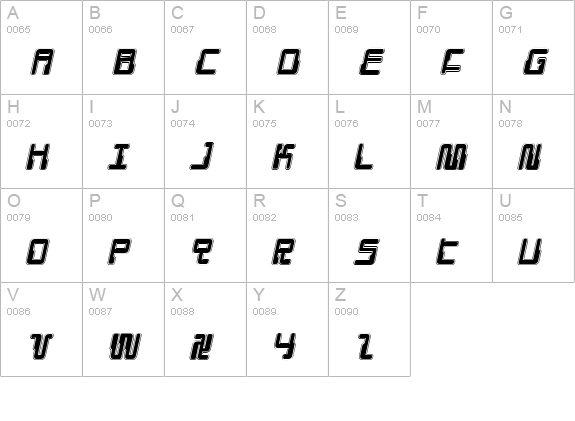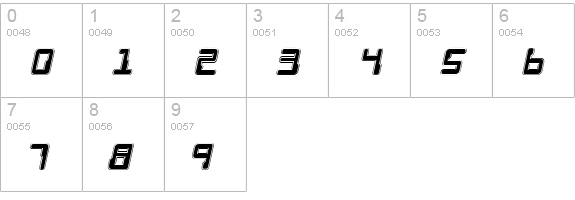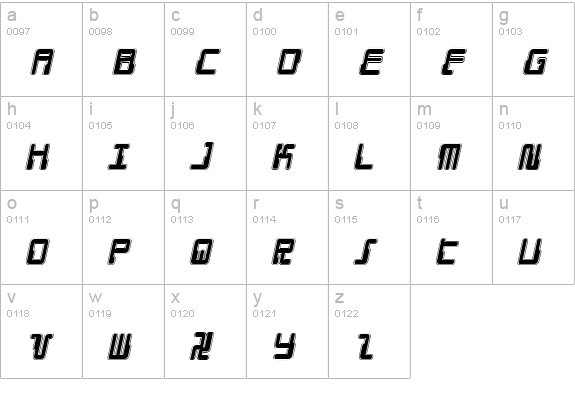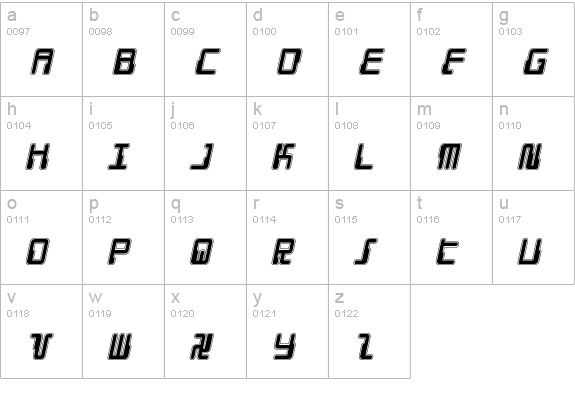
Droid Lover Pro Italic is a distinctive, italic variant in the Droid typeface family \xE2\x80\x94 well suited to design and typography projects.
Introducing Droid Lover Pro Italic font - a sleek and stylish typeface that is perfect for those who have a passion for futuristic designs. This font exudes a sense of sophistication and modernity, making it ideal for projects that require a touch of elegance. The italicized version adds a dynamic flair to any text, making it stand out from the crowd. The best part? Droid Lover Pro Italic font is completely free to download at FontsMarket.com. Now you can elevate your designs with this premium font without breaking the bank. Whether you're working on a branding project, website design, or any creative endeavor, this font will surely make a statement. Don't miss out on the opportunity to enhance your work with the Droid Lover Pro Italic font - get your free download today!